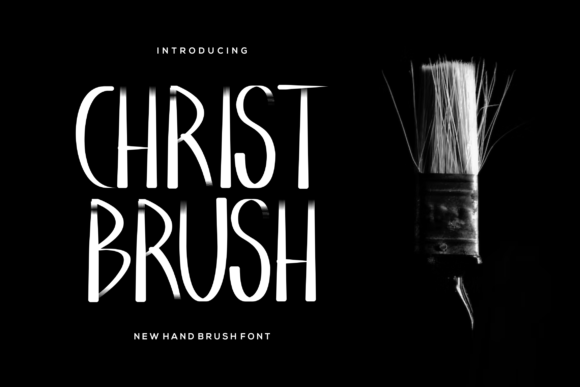
Prepare to be captivated by Christbrush Font, a typographic masterpiece that will ignite your creativity and leave a lasting impression on your audience. This extraordinary display font, meticulously crafted by the visionary designer kalingga.albert, is a symphony of elegance and power, designed to elevate your designs to unprecedented heights.
Unleash the boundless possibilities of Christbrush Font, the perfect choice for tech-savvy individuals and businesses seeking to establish a commanding online presence. Its bold and distinctive character ensures that your website, branding, and marketing materials will stand out from the digital clutter and demand attention.
Imagine your logo, the cornerstone of your brand identity, adorned with the sleek lines and captivating curves of Christbrush Font. Watch as it transforms into a visual masterpiece, attracting customers and etching your brand into their memories.
Step into the world of esports, where every victory is celebrated and every defeat is a lesson learned. Christbrush Font will be your unwavering companion, emblazoning your team's jerseys and branding with an air of professionalism and determination. Let your opponents tremble as they witness the sheer dominance of your visually stunning presence.
But Christbrush Font's versatility extends far beyond the digital realm. Unleash your creativity on t-shirts, posters, and other printed materials, transforming ordinary objects into extraordinary works of art. Its bold strokes and impeccable style will captivate audiences, leaving them in awe of your impeccable taste and attention to detail.
Join the ranks of discerning designers and businesses who have embraced the transformative power of Christbrush Font. Let its bold lines and captivating curves guide you to typographic excellence, where your designs will leave an indelible mark on the world.